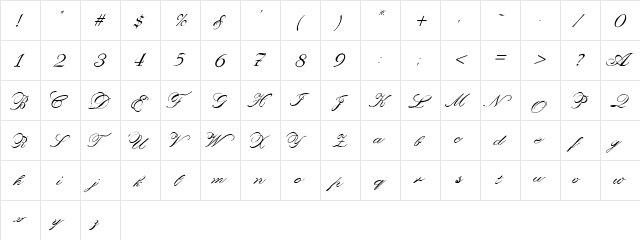
Orphiel Regular
Design Context for Orphiel Typeface
Orphiel is a composed and adaptable typeface that performs quietly and consistently across a wide range of design contexts.